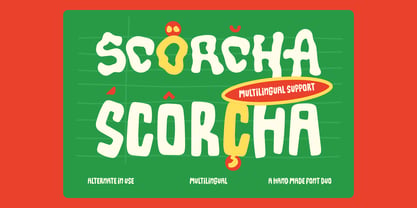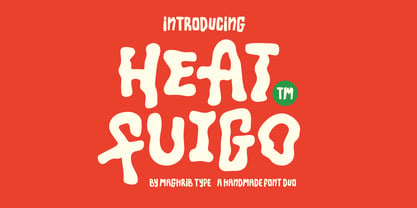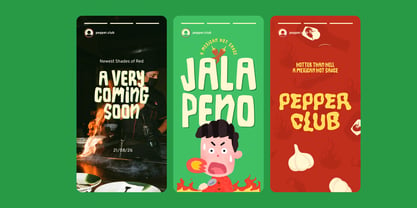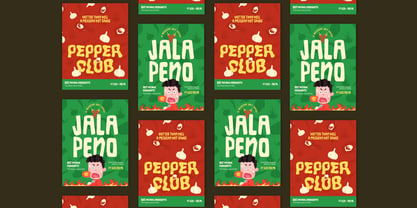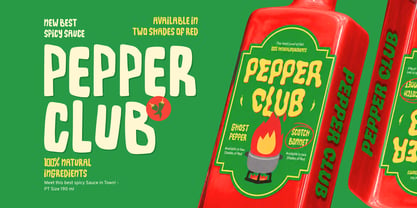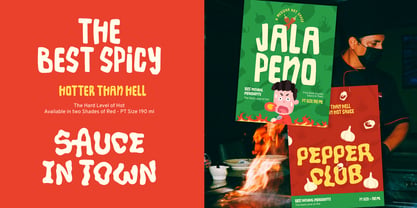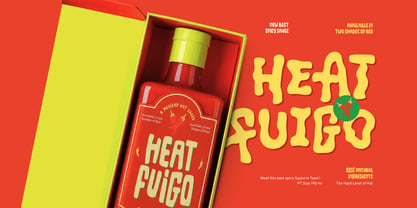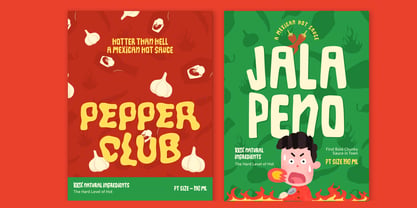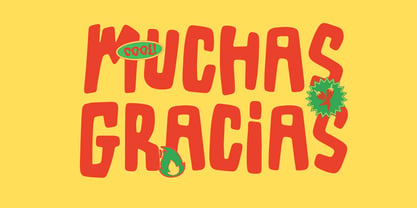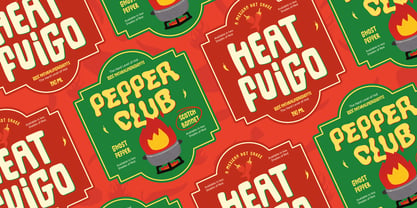
Heat Fuigo Waves
by Maghrib Type
The Heat Fuigo Waves Font Family was designed by Rizky Setyaludin and published by Maghrib Type. Heat Fuigo Waves contains 2 styles and family package options. More about this family
Heat Fuigo is a bold handmade display font duo from Maghrib Type that blends playful organic shapes with a handcrafted aesthetic. Inspired by hot sauce labels, melted cheese, vintage food advertisements, and cheerful packaging, this typeface is designed to make every headline look delicious and unforgettable.
Its thick rounded forms and imperfect handmade details create a warm, friendly, and energetic appearance that's ideal for food branding, restaurant identities, packaging, logos, posters, café menus, children's designs, and social media content.
The included companion font works perfectly for supporting text, creating a complete font duo ready for branding projects. With multilingual support and extensive character coverage, Heat Fuigo is a versatile choice for designers looking for a fun and expressive display typeface.
Ideal for: food branding, restaurant logos, café menus, packaging, posters, merchandise, social media, children's books, playful branding, and creative advertising.